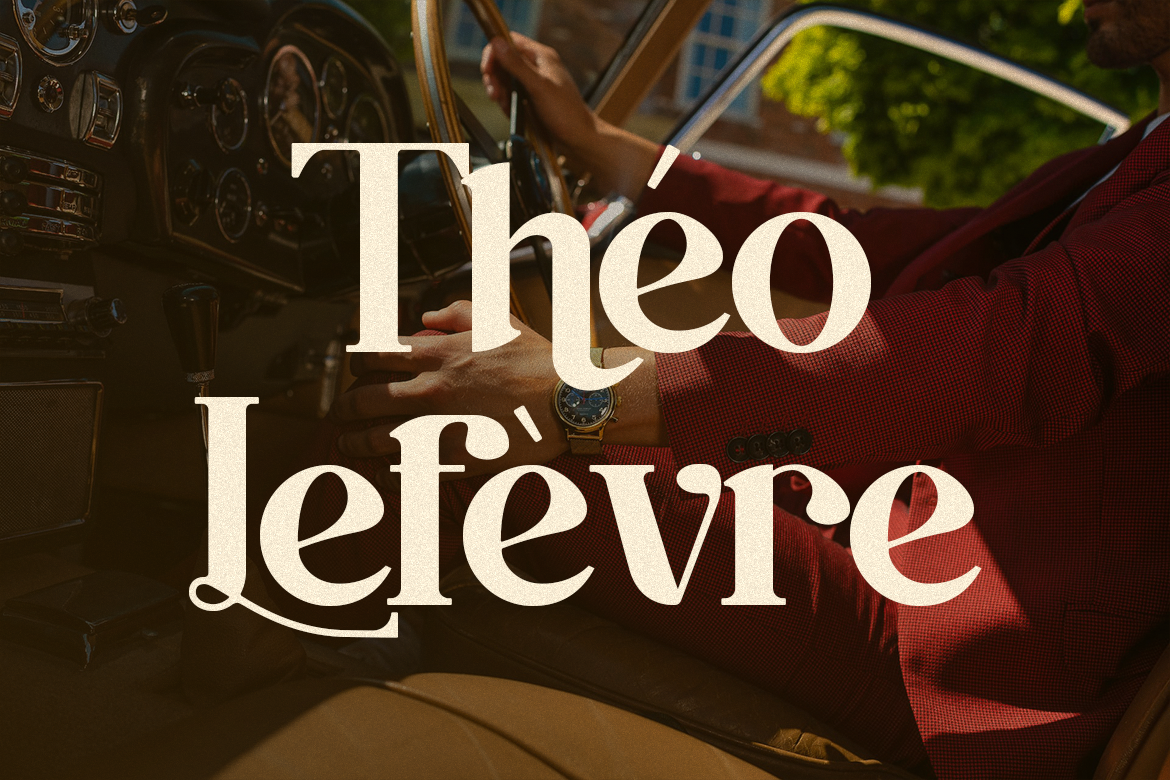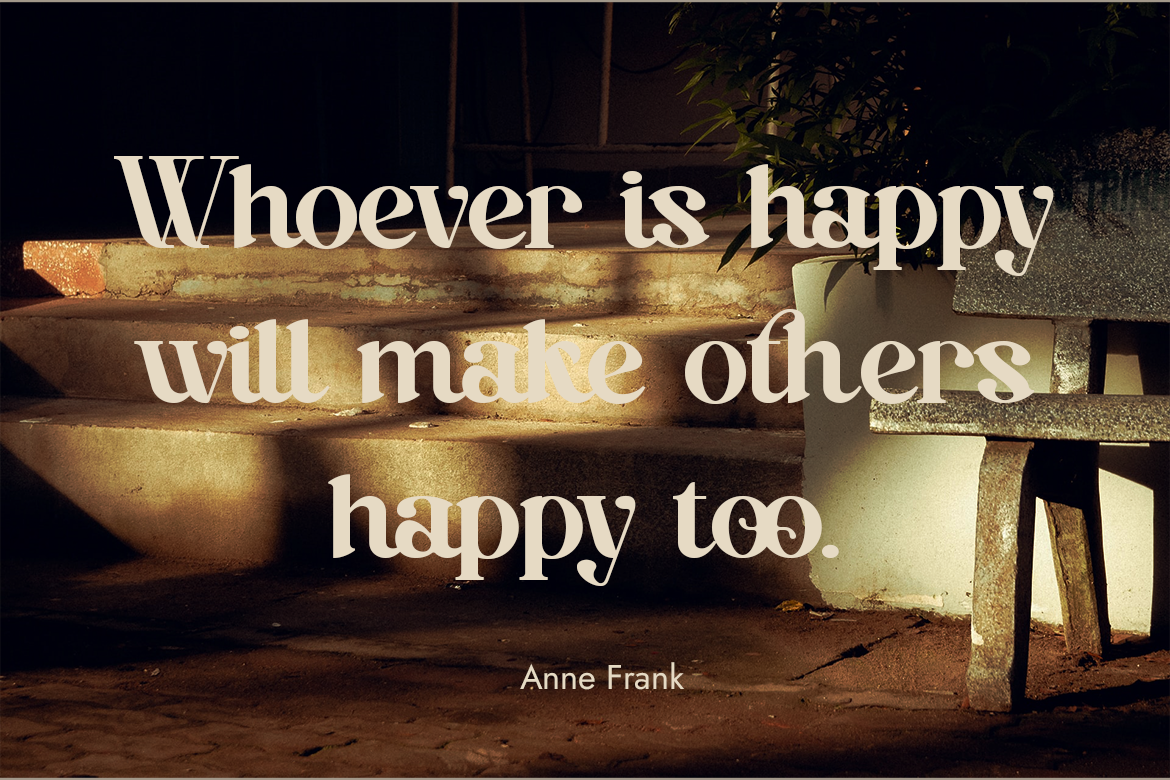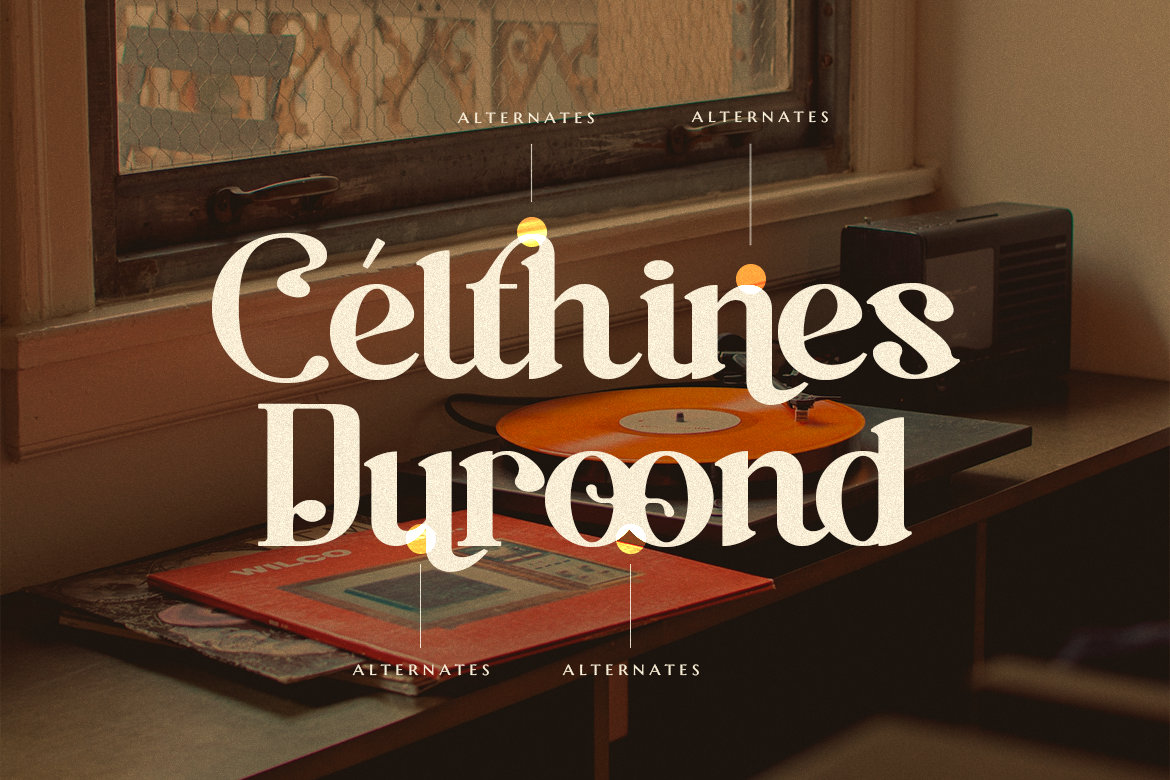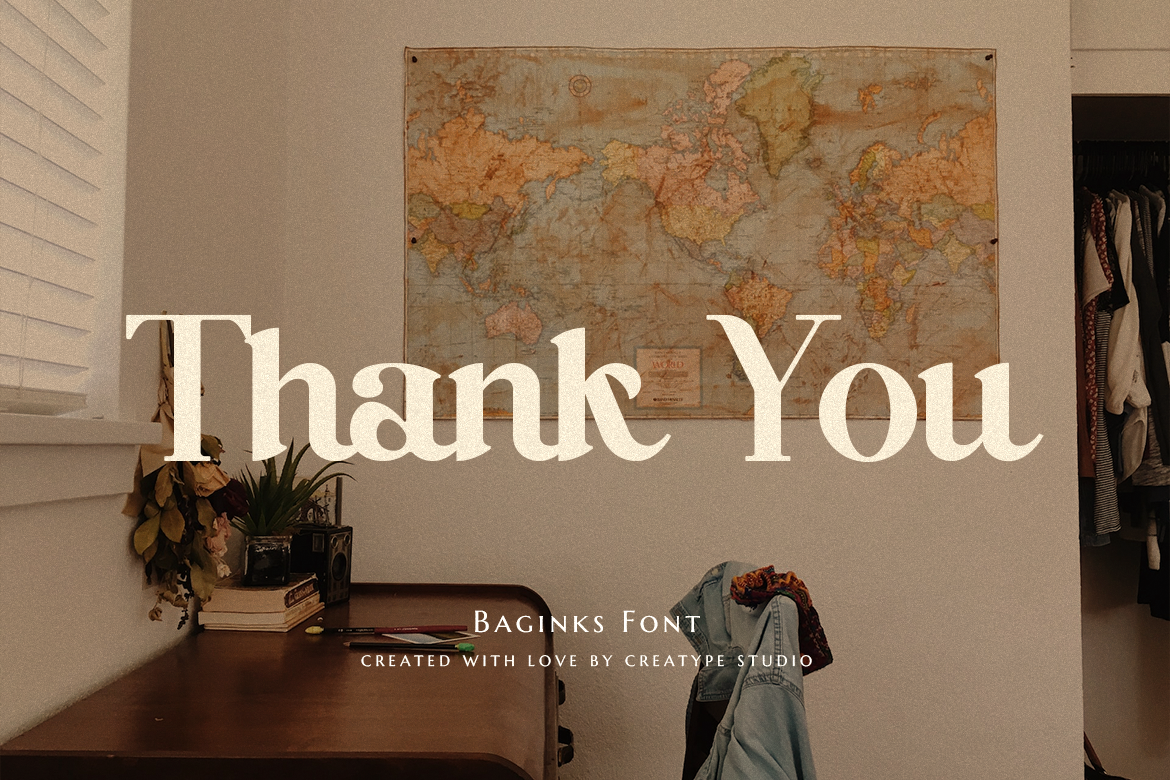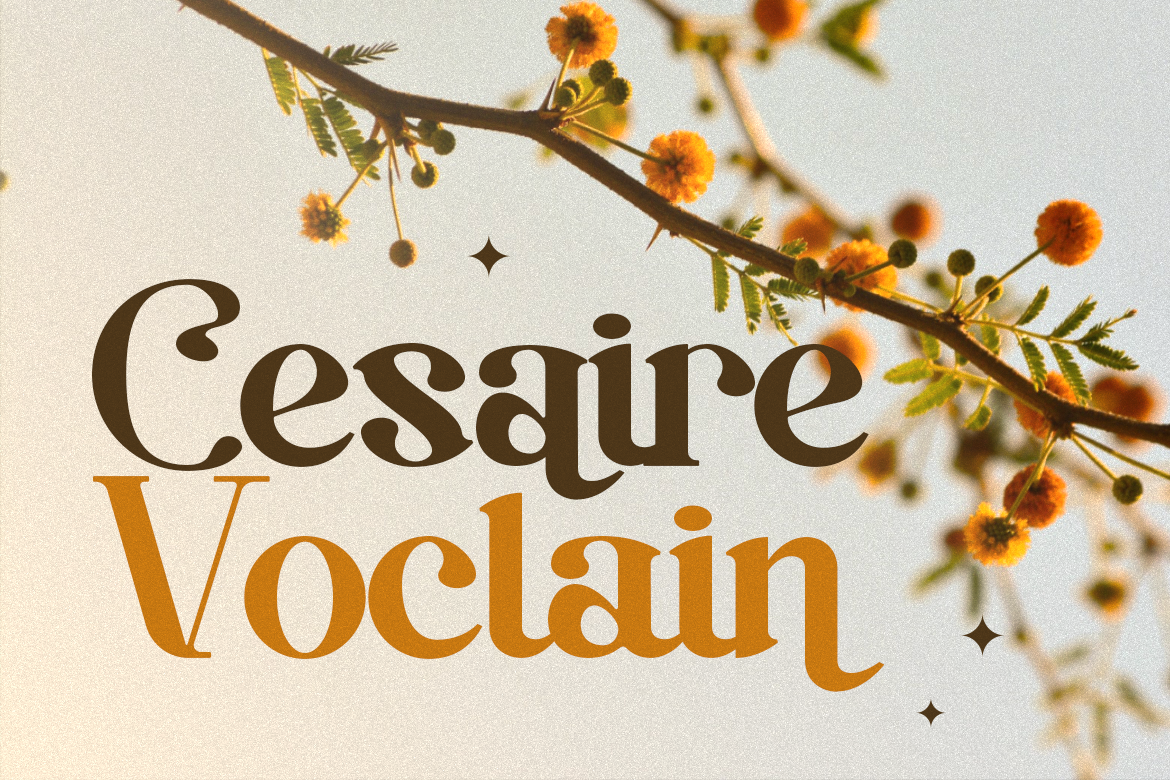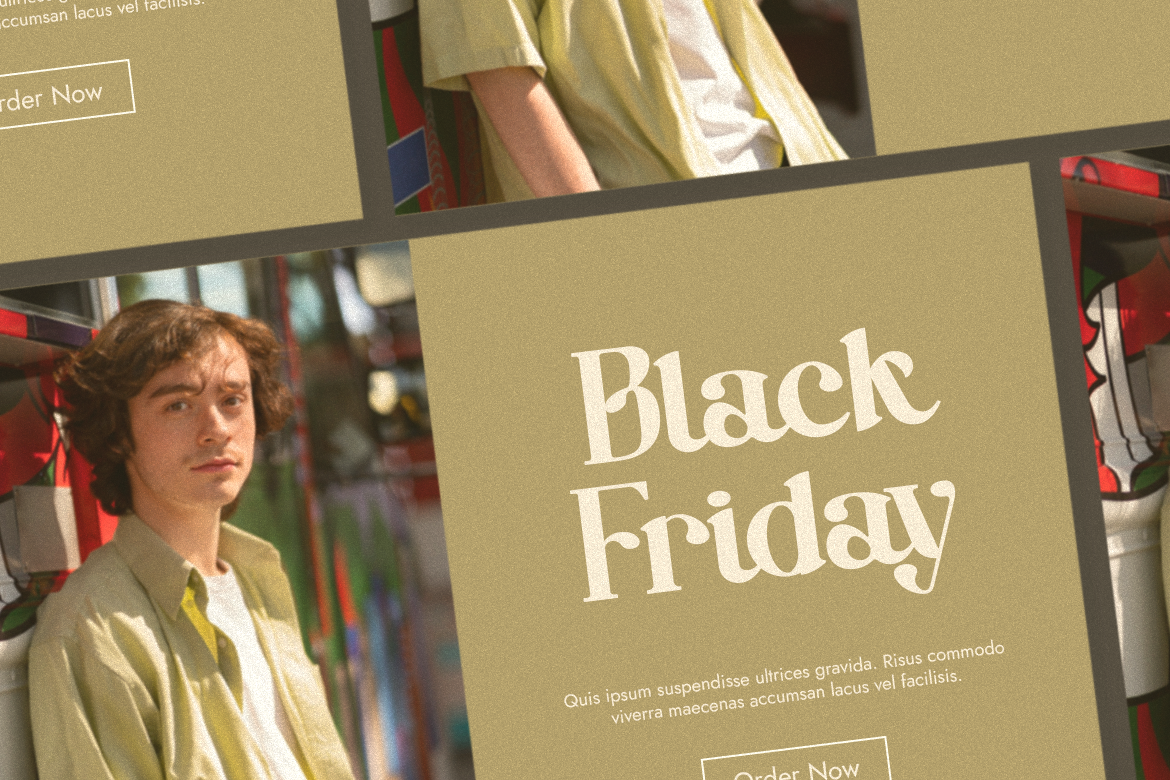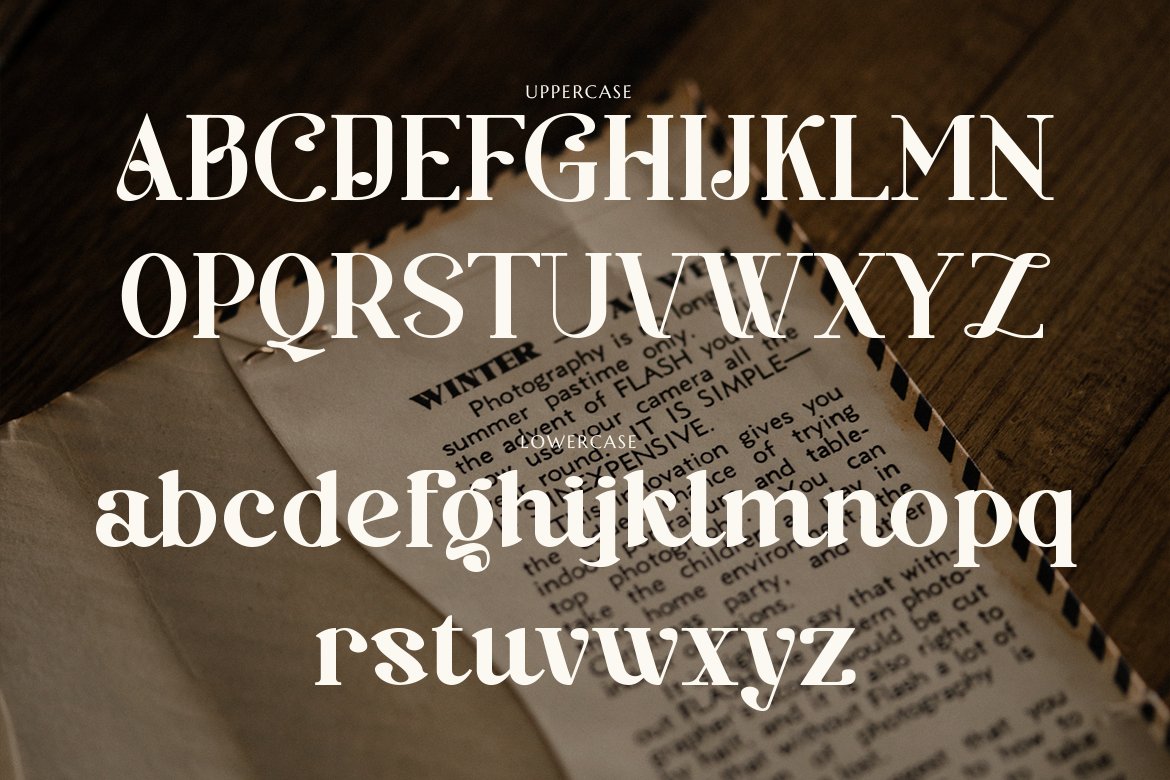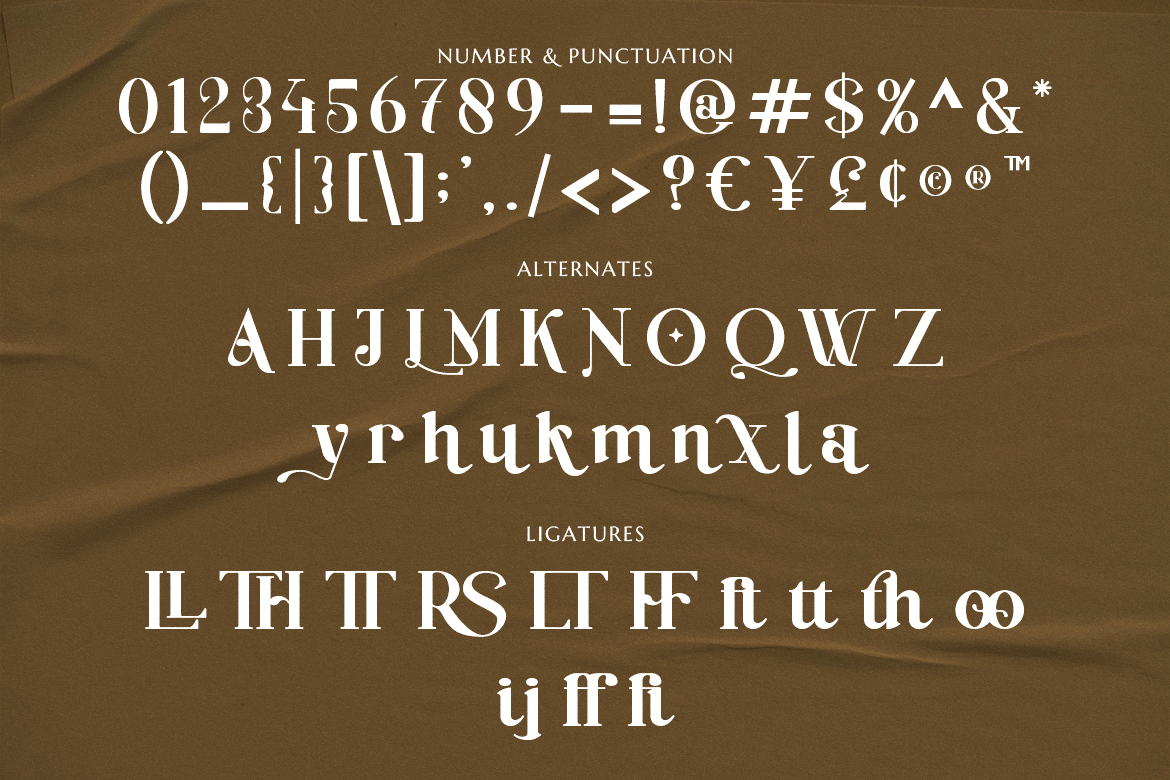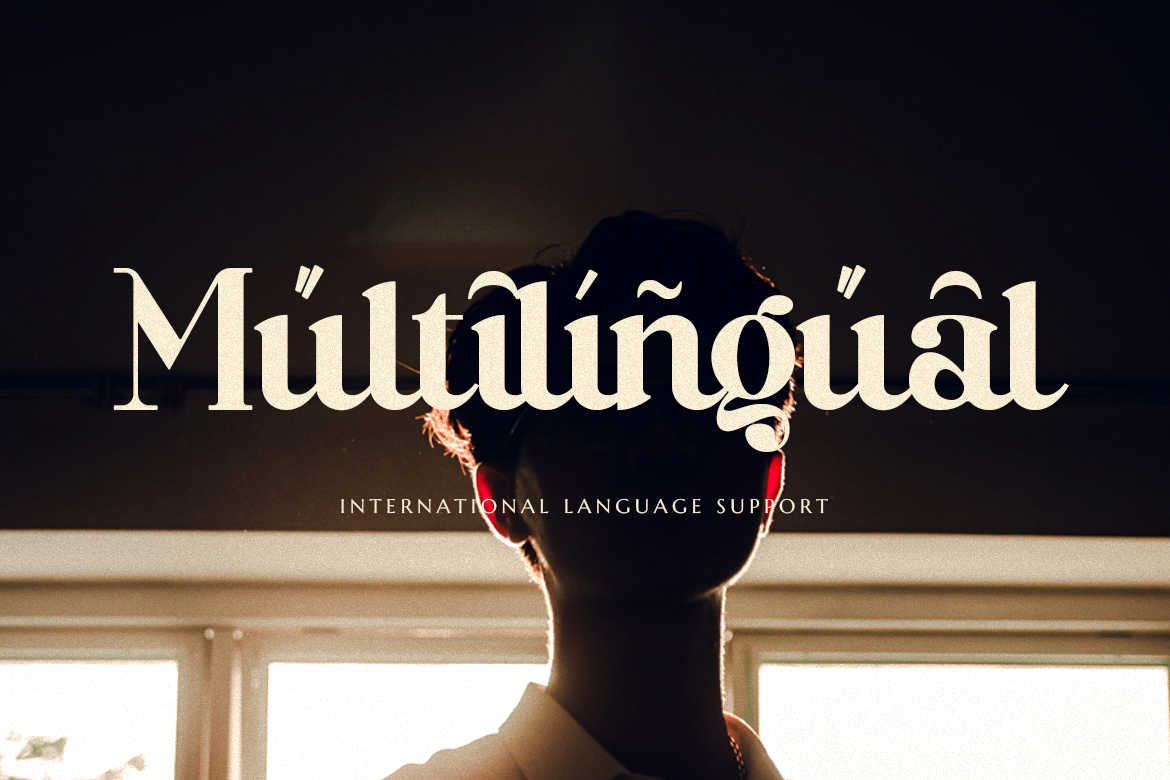
Introduce Baginks. This typeface is a combine of bold, playful, and fun to play with. You can have a serious tone with an elegant vibe, but you can use this on a fun and casual occasion.
Baginks is perfect for branding projects, logo, wedding designs, social media posts, advertisements, product packaging, product designs, label, photography, watermark, invitation, stationery and any projects that need handwriting taste.